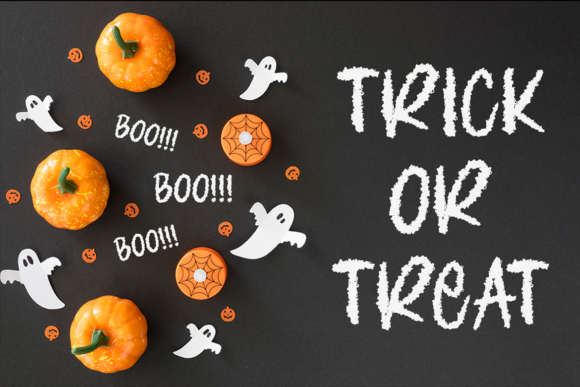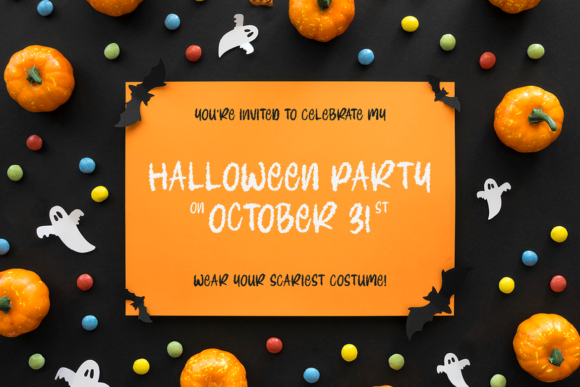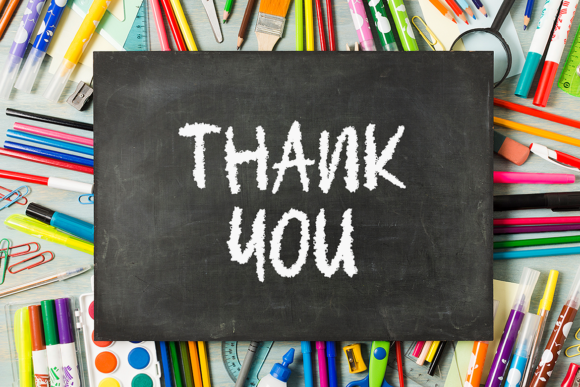
About Chalkboard Font
Chalkboard is a handmade chalk font. This bold, fun, and stylish font can be used for a host of different content needs and projects. Create gorgeous party invitations, printed quotes, standout packaging, or beautiful t-shirts! You can even use it to create amazing headings, logos, menus, and social media graphics.